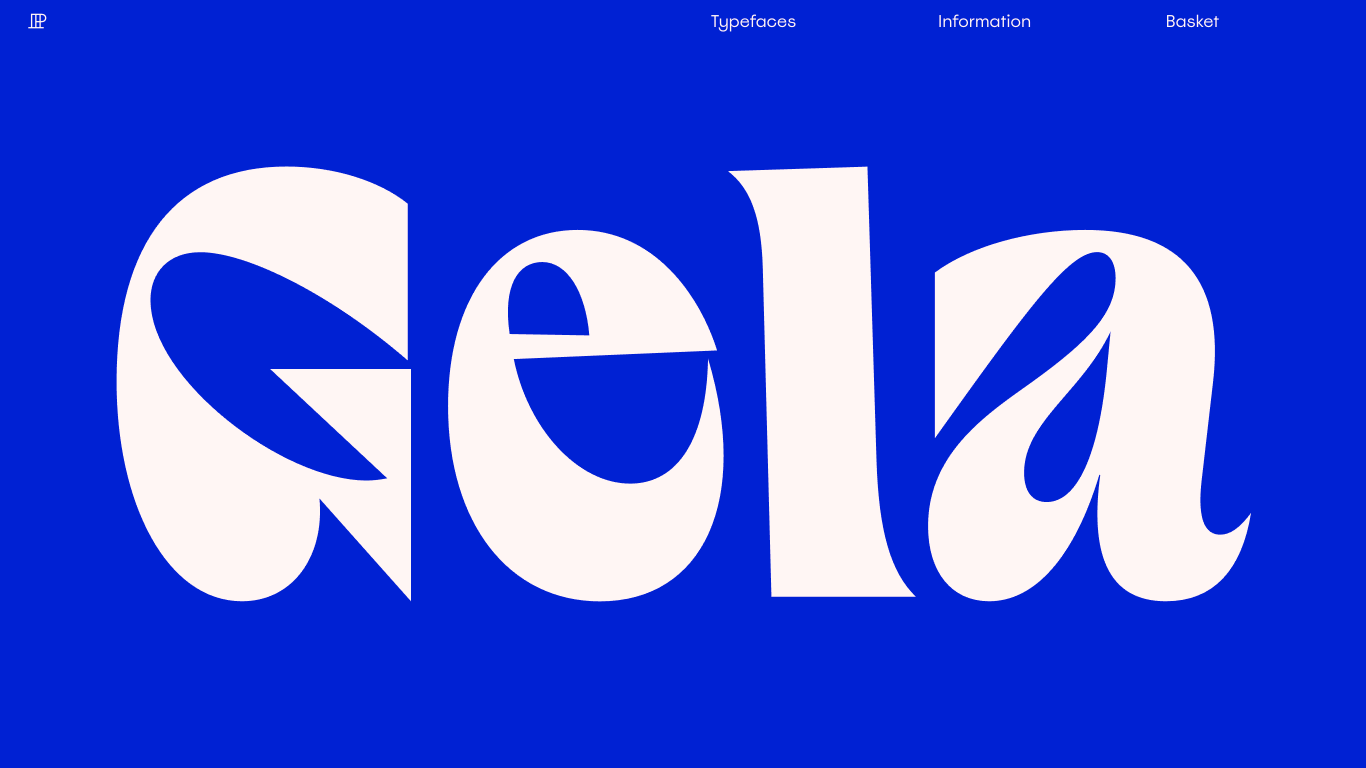
Polytype
Scotland
2016
Polytype is a Glasgow-based independent type foundry founded in 2016 by Lewis MacDonald. As a one-man studio, it offers high-quality original retail fonts—such as Spoof, Freizeit100, Freizeit120 and Roquefort—while also providing bespoke custom type services. Though specific brand clients aren’t listed, McDonald’s fonts have been featured in custom projects like the chunky Deep Pan Sans used in The Mean Tomato pizzeria’s branding. What sets Polytype apart is its dual focus on expressive retail releases and deeply tailored, custom designs—all created by a single designer—bringing a cohesive creative signature that blends personal artistry with professional craftsmanship.